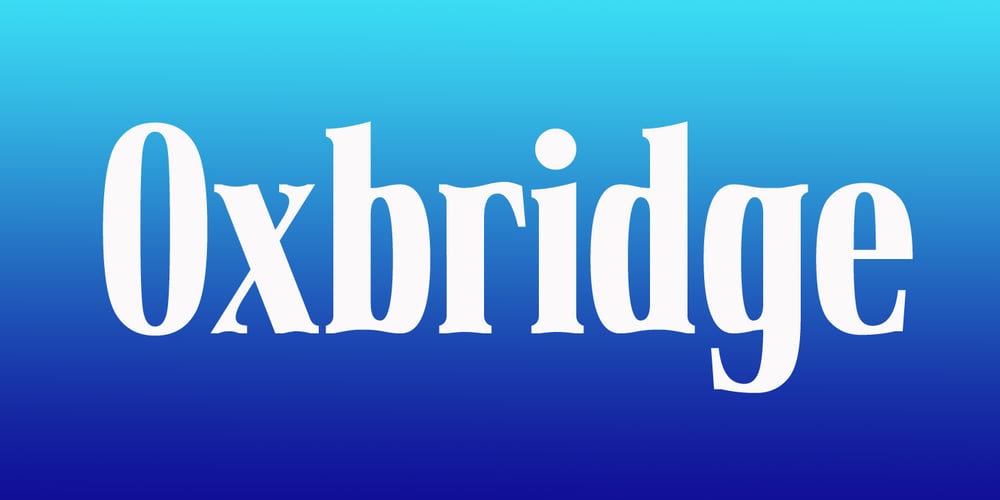
Oxbridge Font Family was designed by Keith Tricker and published by Studio K. Oxbridge contains 2 styles and family package options. Crisp, classic and compact, Oxbridge is a distinguished display font ideally suited to branding luxury goods or other applications which call for a combination of style and authority.